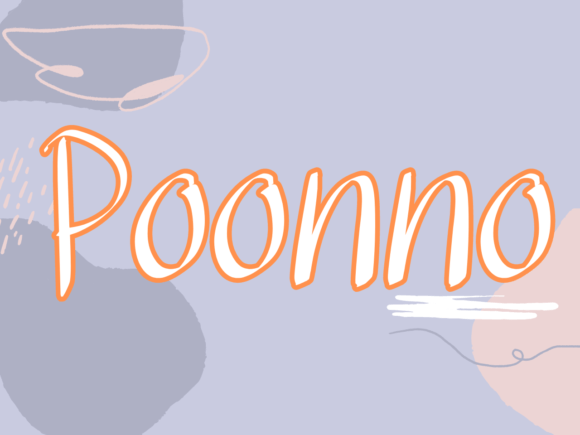
Behold Poonno, a font so sweet and friendly, it'll warm your designs with a cozy embrace. With its natural and unique style, Poonno effortlessly blends into a myriad of creative endeavors, like a chameleon seamlessly adapting to its surroundings. Let your imagination run wild and Poonno will follow, transforming your designs into captivating visual masterpieces.
Poonno's charming strokes add a human touch to your digital creations. Its handwritten nature evokes a sense of authenticity and warmth, making your designs feel more personal and relatable. Whether you're crafting logos, invitations, social media posts, or any other design project, Poonno infuses your work with a touch of delightful charm that captures attention and sparks conversation.
Unlock the endless possibilities with Poonno. Its versatility knows no bounds, making it a font for all seasons and occasions. From elegant wedding invitations to playful children's books, Poonno effortlessly adapts, adding a touch of whimsy and delight to every project. With Poonno, you'll never be limited by font choices, as it seamlessly blends with any design aesthetic, enhancing your creativity and bringing your vision to life.